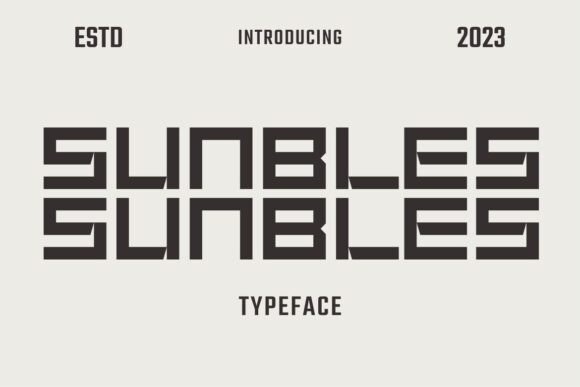
Sunbles Font: The Ultimate Typeface for Modern Designs
In the world of typography, a font can make or break a design. With the right typeface, a project can instantly gain a professional edge, making it more engaging and memorable for its audience. This is where Sunbles Font comes into play. A modern and authentic typeface, Sunbles Font is perfect for both professional and branding needs. Its versatility and flexibility make it an excellent choice for a variety of projects, including logos, quotes, blog headers, posters, invitations, stationery, and more.
What Makes Sunbles Font Stand Out?
Sunbles Font boasts a stylish design that stands out across different contexts. Its unique and elegant style makes it perfect for creative endeavors that require a modern touch. Whether you’re working on a logo, a poster, or a blog header, Sunbles Font can add a touch of sophistication and professionalism to your design.
One of the key features that set Sunbles Font apart is its versatility. It’s a font that can be used in a variety of projects, from print materials like brochures and flyers to digital platforms like websites and social media. This flexibility makes it an excellent choice for designers who work on a wide range of projects.
The Benefits of Using Sunbles Font
There are several benefits to using Sunbles Font in your designs. Here are a few:
- Modern and Authentic: Sunbles Font has a modern and authentic feel to it, making it perfect for designs that require a fresh and contemporary look.
- Versatile and Flexible: Sunbles Font can be used in a variety of projects, from logos and posters to blog headers and stationery.
- Stylish Design: Sunbles Font has a stylish design that stands out across different contexts, making it an excellent choice for creative endeavors.
- Easy to Read: Sunbles Font is easy to read, making it perfect for body text and other applications where readability is key.
How to Use Sunbles Font in Your Designs
Using Sunbles Font in your designs is easy. Here are a few tips to get you started:
- Pair it with Other Fonts: Sunbles Font can be paired with other fonts to create a unique and interesting look.
- Experiment with Different Sizes: Sunbles Font can be used in a variety of sizes, from large headings to small body text.
- Use it in Digital and Print Materials: Sunbles Font can be used in both digital and print materials, making it a versatile choice for designers.
Sunbles Font in Professional and Branding Needs
Sunbles Font is perfect for professional and branding needs. Its modern and authentic design makes it an excellent choice for:
- Logos: Sunbles Font can be used to create a unique and memorable logo that sets your brand apart.
- Branding Materials: Sunbles Font can be used in branding materials like business cards, letterheads, and envelopes.
- Advertising: Sunbles Font can be used in advertising materials like billboards, posters, and flyers.
Sunbles Font in Digital and Print Materials
Sunbles Font can be used in a variety of digital and print materials, including:
- Websites: Sunbles Font can be used on websites to create a modern and authentic look.
- Social Media: Sunbles Font can be used on social media platforms to create engaging and memorable content.
- Print Materials: Sunbles Font can be used in print materials like brochures, flyers, and posters.
In conclusion, Sunbles Font is a modern and authentic typeface that is perfect for both professional and branding needs. Its versatility and flexibility make it an excellent choice for a variety of projects, including logos, quotes, blog headers, posters, invitations, stationery, and more. With its stylish design, Sunbles Font stands out across different contexts, making it an excellent choice for any creative endeavor.